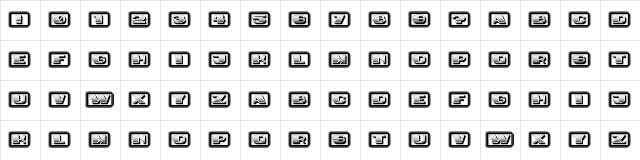
Idiot Capitals Gradient Filled Regular
Design Context for Idiot Capitals Gradient Filled Typeface
Idiot Capitals Gradient Filled is a composed and adaptable typeface that performs quietly and consistently across a wide range of design contexts.
Pro Tip: Use Idiot Capitals Gradient Filled in both headline and body roles to test its range before committing to a single application.